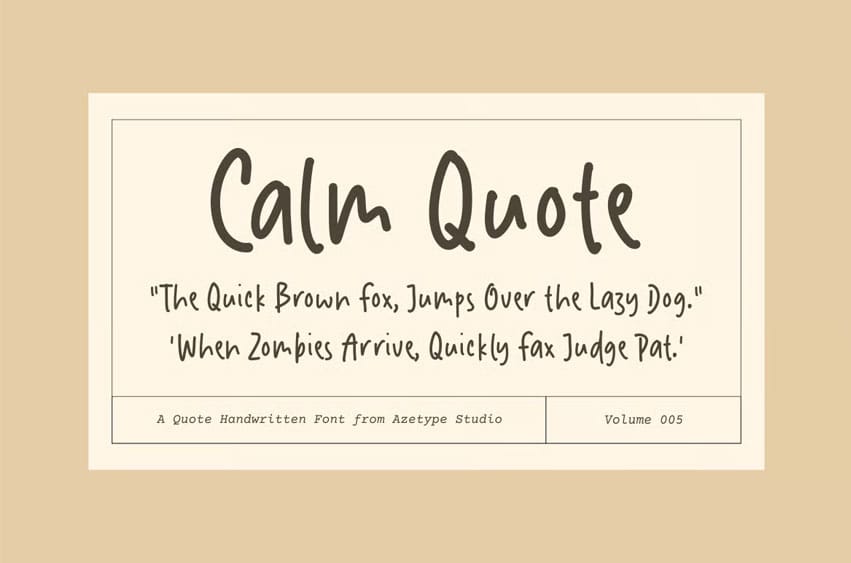
Calm Quote Font is an organic handwritten font suitable for your design project needs, such as; social media posts, quotes, overlays on images, tagline logos, posters, print needs, website banners, and more.
- A set of uppercase and lowercase glyphs
- Number, Symbols, and Punctuation